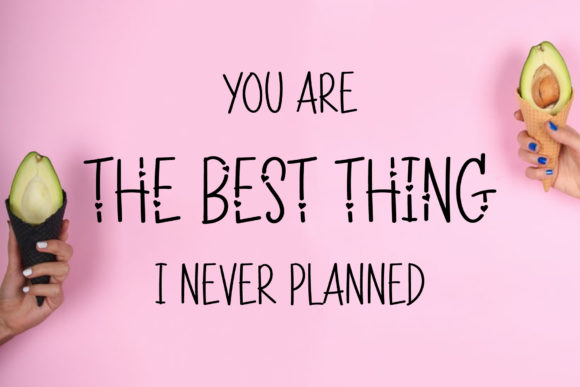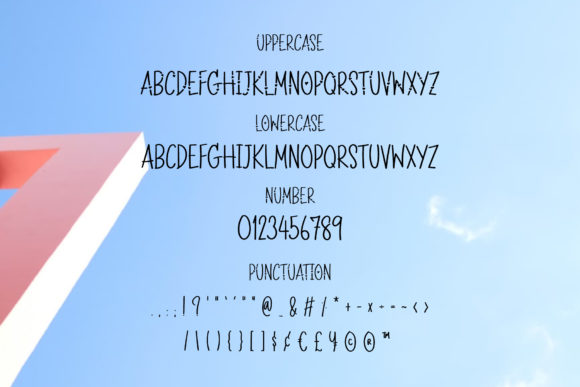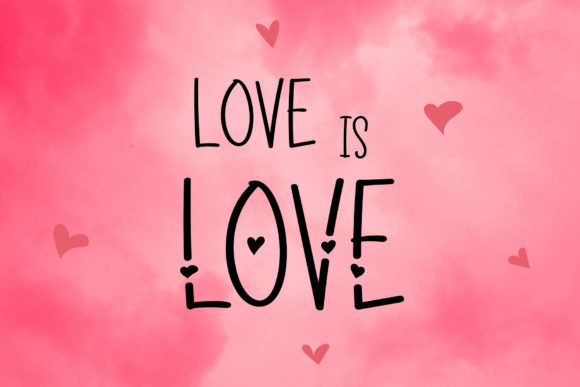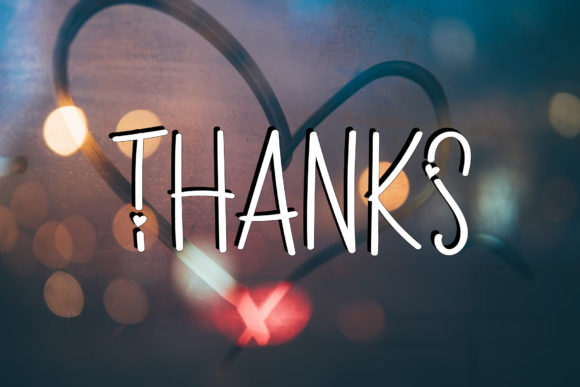
Discover the Perfect Font for Your Heartfelt Creations
You know that moment when you’re brainstorming ideas for a special project and everything just clicks? The creative juices start flowing, and you can’t wait to bring your vision to life. For designers, this feeling is a familiar sensation, and the right tools can make all the difference. That’s where the Be Loved Font comes in – a charming and romantic display font designed to add a touch of sweetness to any project.
Whether you’re crafting custom wedding invitations, creating digital art, or designing presentations, the Be Loved Font is the perfect addition to your toolkit. Its unique blend of playful hearts and elegant lettering makes it a valuable asset for designers looking to add a personal touch to their work. With the Be Loved Font, you’ll be able to convey your message in a way that’s both visually appealing and emotionally resonant.
Key Features of Be Loved Font
- Font Family: Be Loved is a unique, hand-drawn font designed to evoke emotions and convey a sense of love and warmth.
- Unique Characteristics: Be Loved features a distinctive, handwritten style with subtle flourishes and imperfections, giving it a personal and emotional touch.
Designer Review: Be Loved Font
Overall, I’m impressed with the Be Loved Font, but it’s not without its quirks. Let’s dive into what works well and what doesn’t.
- ✨ Beautifully handwritten feel: The Be Loved Font has a charming, handwritten quality that’s perfect for adding a touch of elegance to your designs.
- ✨ Wide character set: The font includes a wide range of characters, including Latin, Greek, and Cyrillic scripts, making it a great choice for international designs.
- ✨ Customizable: The font is highly customizable, allowing you to adjust the size, spacing, and other parameters to suit your needs.
- ⚠️ Limited legibility at small sizes: While the Be Loved Font looks great at larger sizes, it can become difficult to read at smaller sizes, making it less suitable for body text.
- ⚠️ Not ideal for sans-serif designs: The font’s handwritten feel may clash with sans-serif designs, so it’s best to use it in combination with serif fonts.
Overall, I think the Be Loved Font is a great choice for designers looking to add a touch of elegance to their projects. While it may have some limitations, its beautiful handwriting feel and wide character set make it a valuable addition to any font collection.
Tip: Use the Be Loved font for creating eye-catching headings and titles to add a touch of elegance to your designs.
Tip: Use the Be Loved font to create custom logos, typography-based artwork, or illustrations that require a beautiful, elegant font.
Tip: Use the Be Loved font to add a touch of sophistication to your presentations, reports, or documents.
The Be Loved font is suitable for various design projects, including:
- Typography-based artwork
- Formal presentations and reports